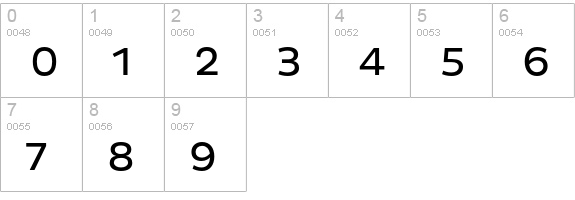
Pluto Regular is the standard, neutral variant in the Pluto typeface family \xE2\x80\x94 well suited to general body text, paragraphs, and standard typographic work.
Pluto Regular font exudes a timeless elegance and sophistication, making it a versatile choice for various design projects. With its clean lines and balanced proportions, this font offers a perfect blend of professionalism and modernity. Whether used for branding, editorial design, or web content, Pluto Regular font adds a touch of class to any layout. Best of all, Pluto Regular font is completely free to download at FontsMarket.com. This means you can easily access this high-quality typeface and use it in your projects without any cost. Don't miss out on the opportunity to elevate your designs with the refined charm of Pluto Regular font. Download it today and see for yourself the impact it can make on your creative work.